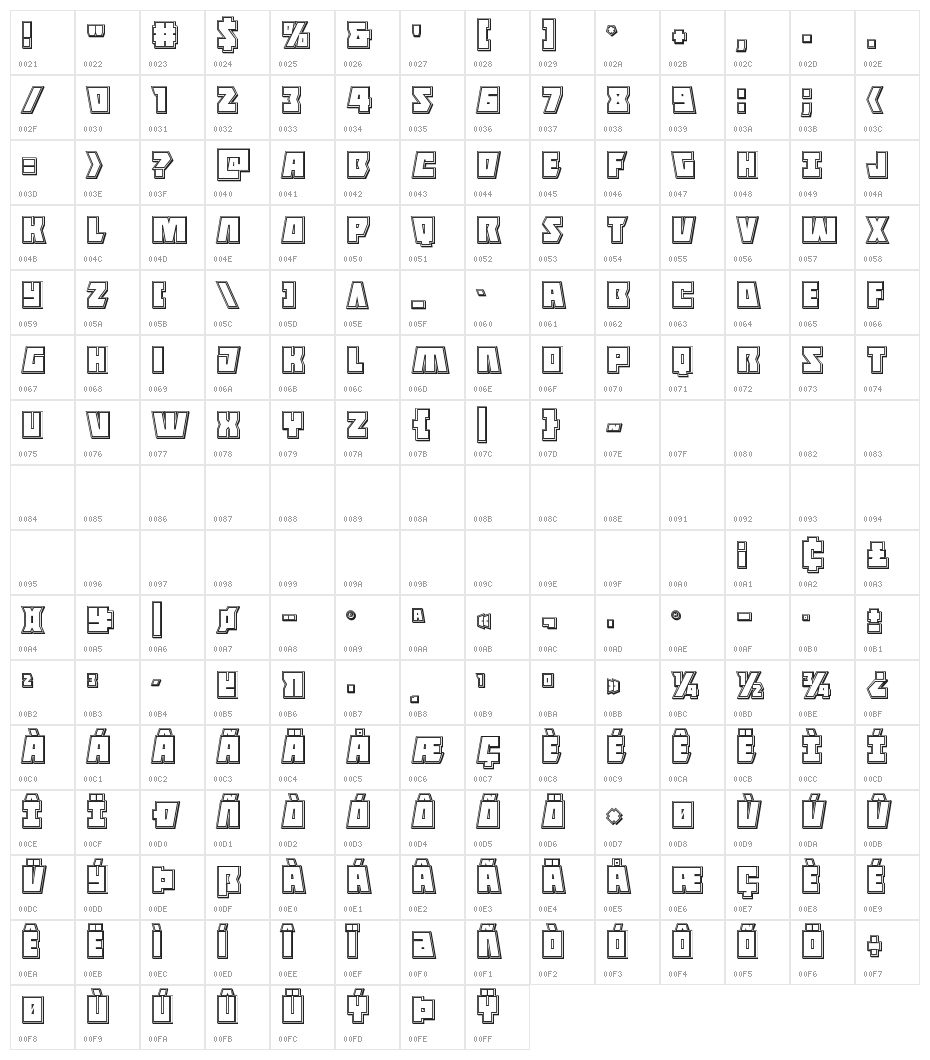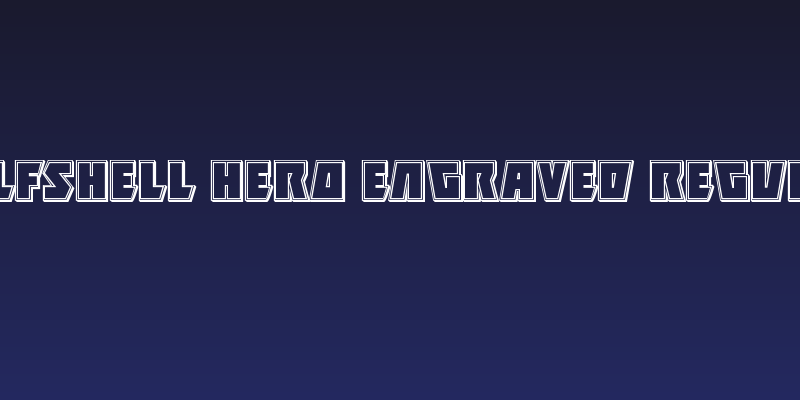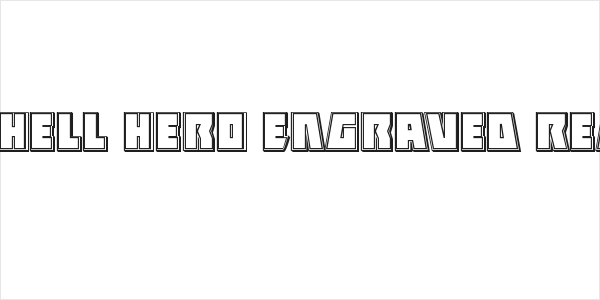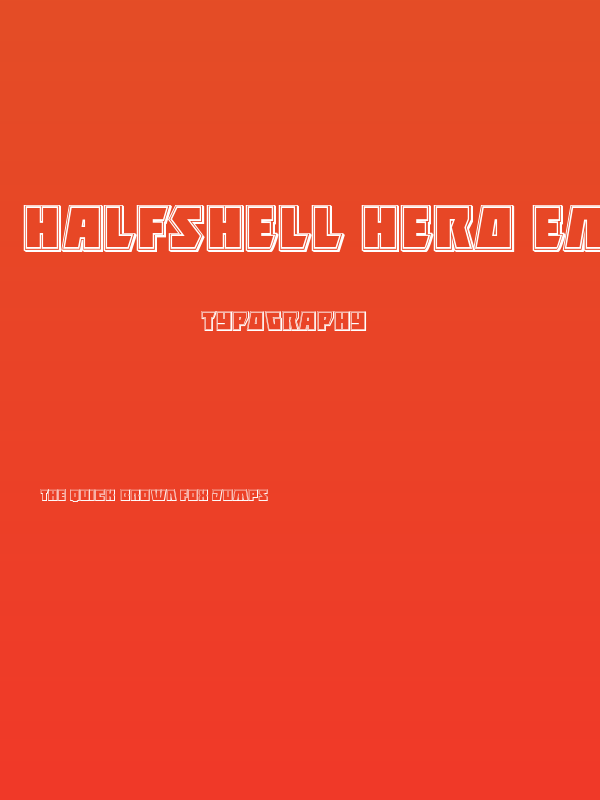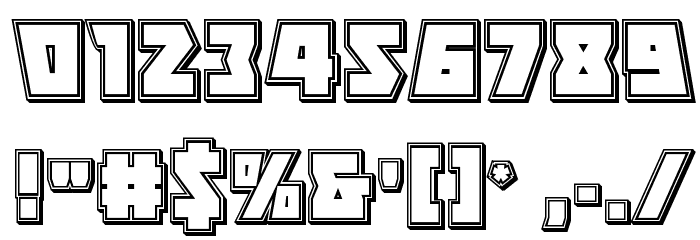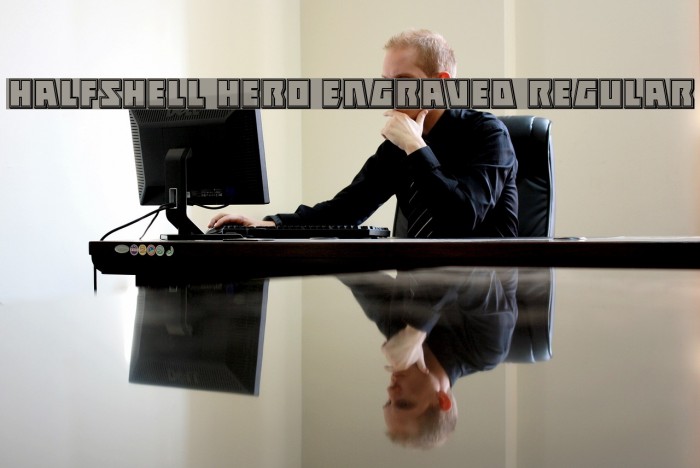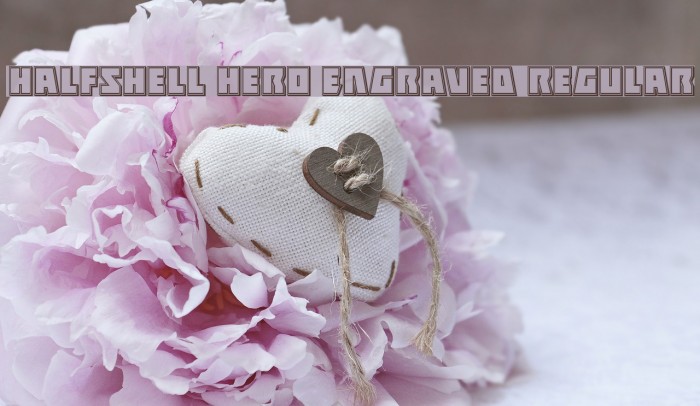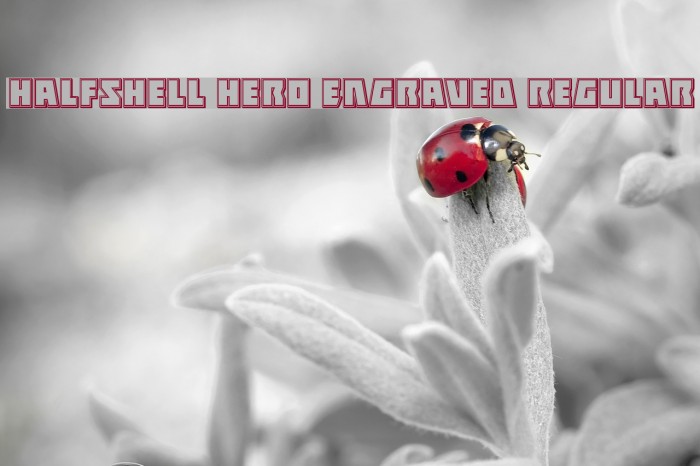
Halfshell Hero Engraved Regular Font
Halfshell Hero Engraved Regular Description
This font features a bold, geometric design with a strong, angular appearance. Each character is outlined, giving it a three-dimensional, engraved look. The uppercase and lowercase letters maintain a consistent style, emphasizing sharp edges and a blocky structure. Numbers and special characters follow the same design principles, ensuring uniformity across all glyphs. The font's unique style makes it stand out, suitable for attention-grabbing headlines or creative projects that require a modern, edgy aesthetic.